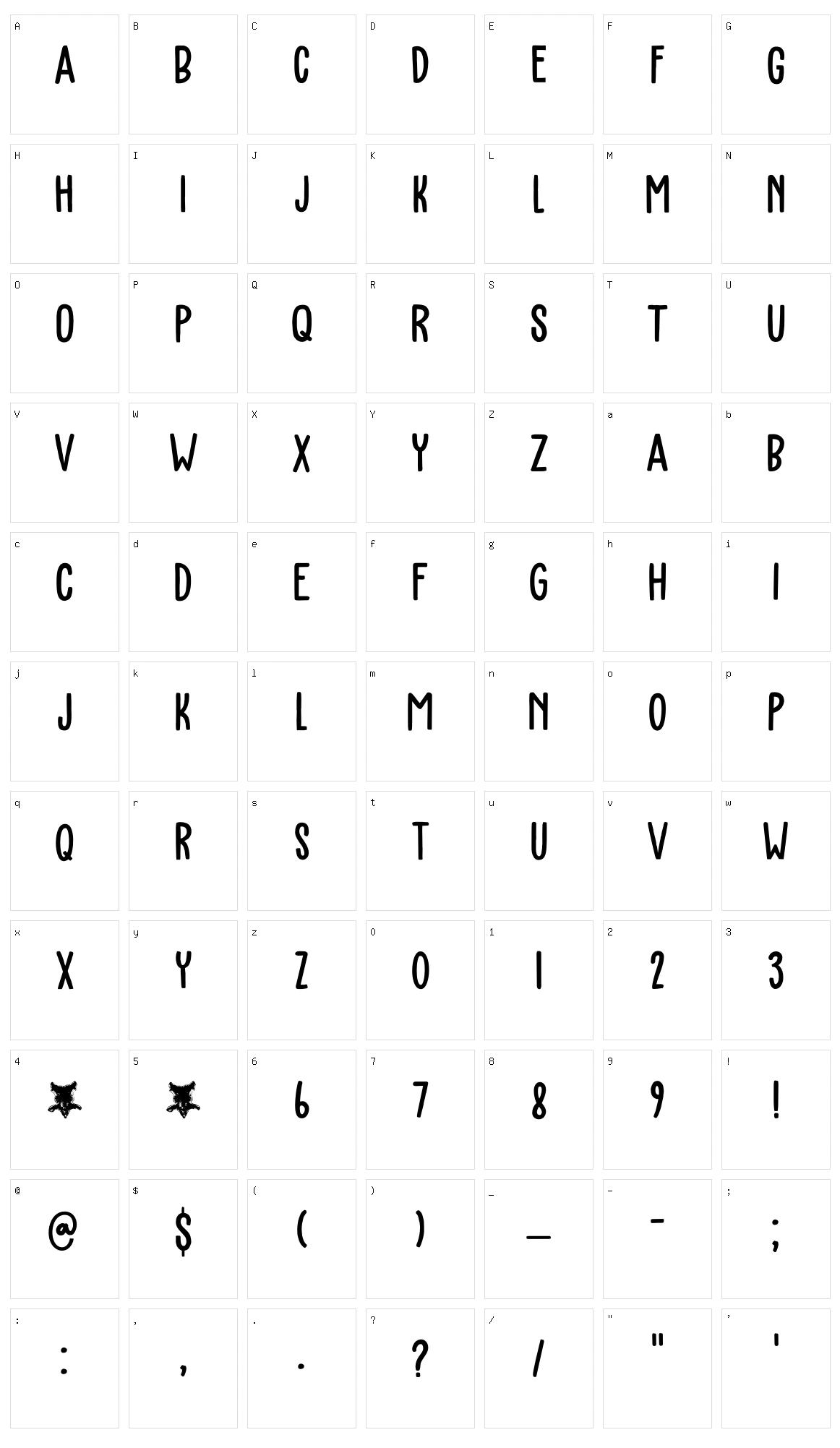
The free font Bearskin is carefully designed by Hanoded, showcasing a thoughtful balance of creativity and usability and falls under the Cartoon font style. When you download the ZIP file, it contains only 1547.33 KB of font files, making it lightweight and quick to download. Please review the license details below to understand permitted usage and distribution rights. If license information is not available, we recommend using this font for personal projects only or contacting the author directly for commercial usage permissions.